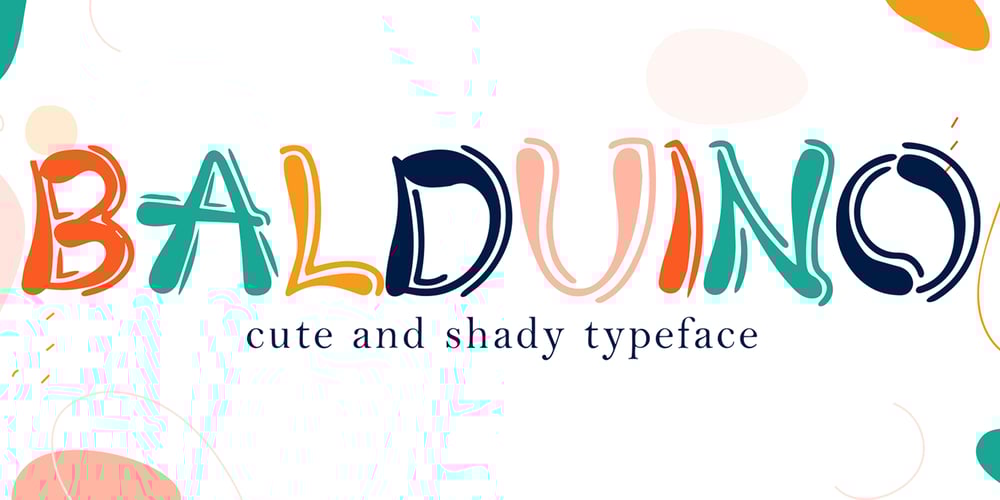
Balduino Font Family was designed by Sipanji and published by Sipanji21. Balduino contains 1 styles and family package options. Balduino is a cute and trendy display font with a thin shadow. No matter the topic, this font will be an incredible asset to your fonts library, as it has the potential to elevate any creation: logotype, tote bag, branding, Snack package, title, or headline.